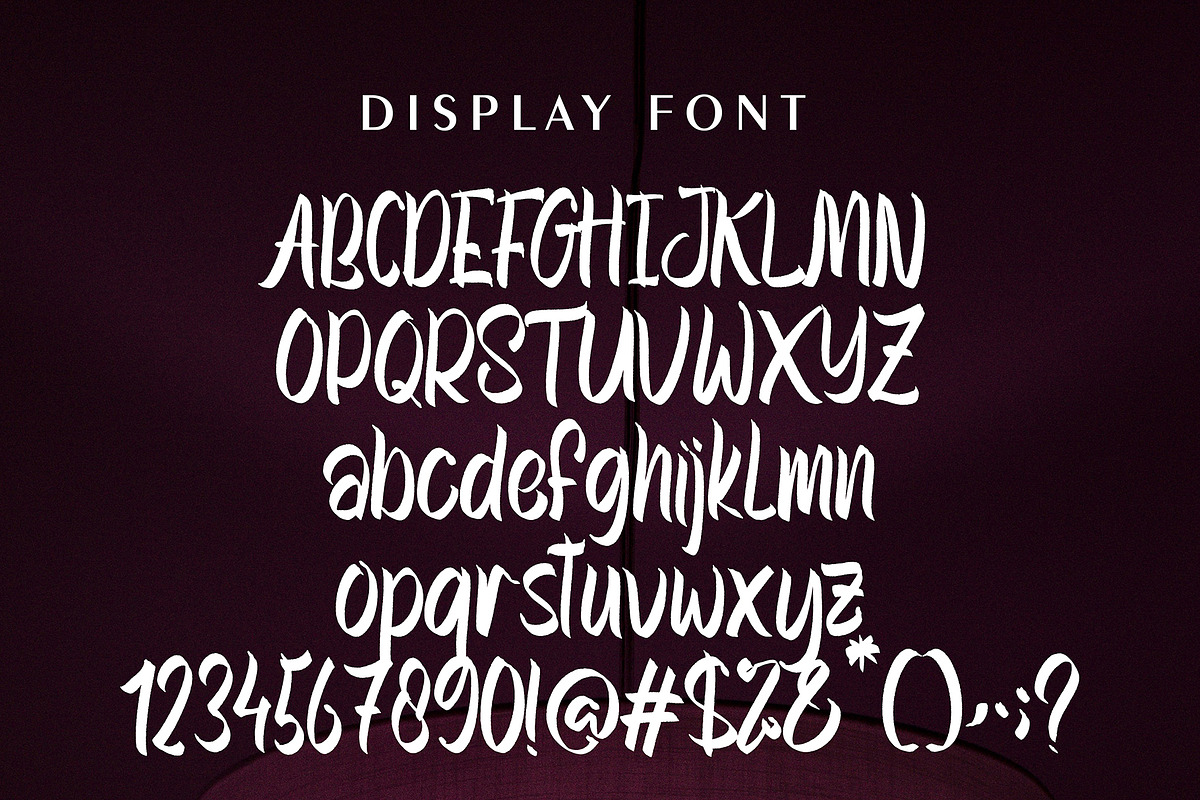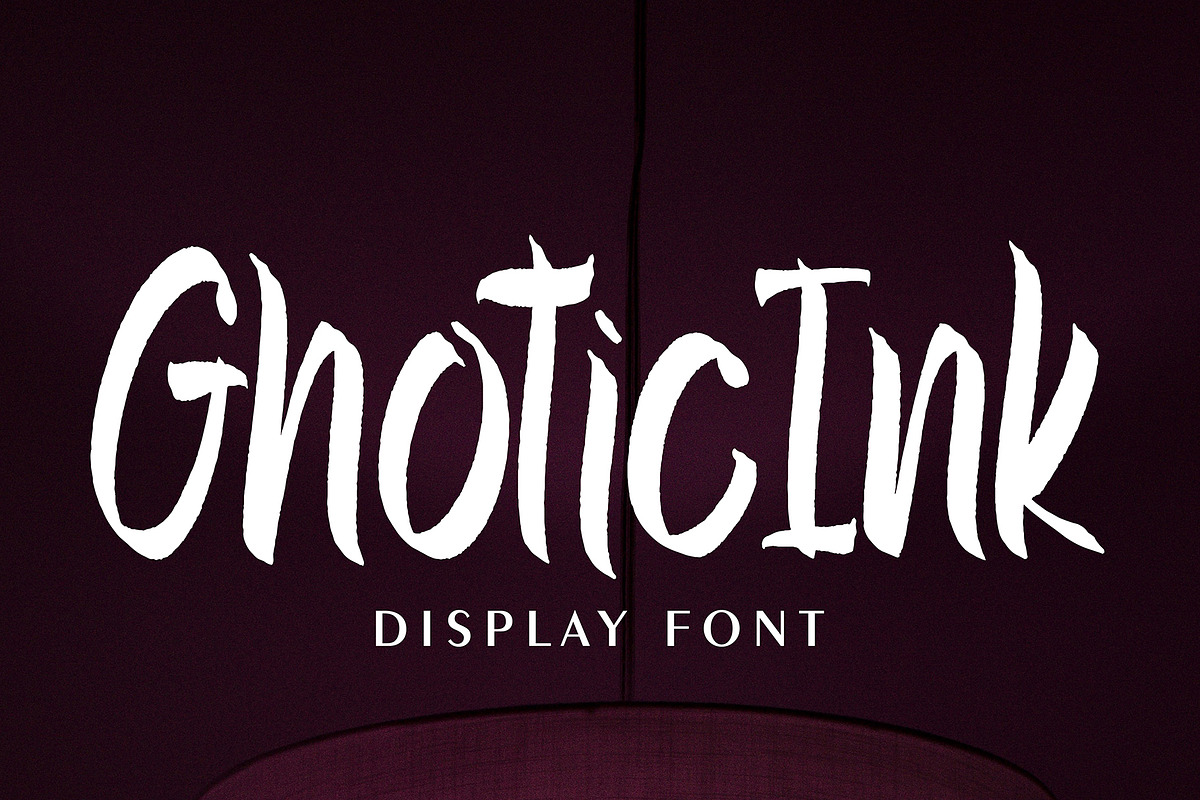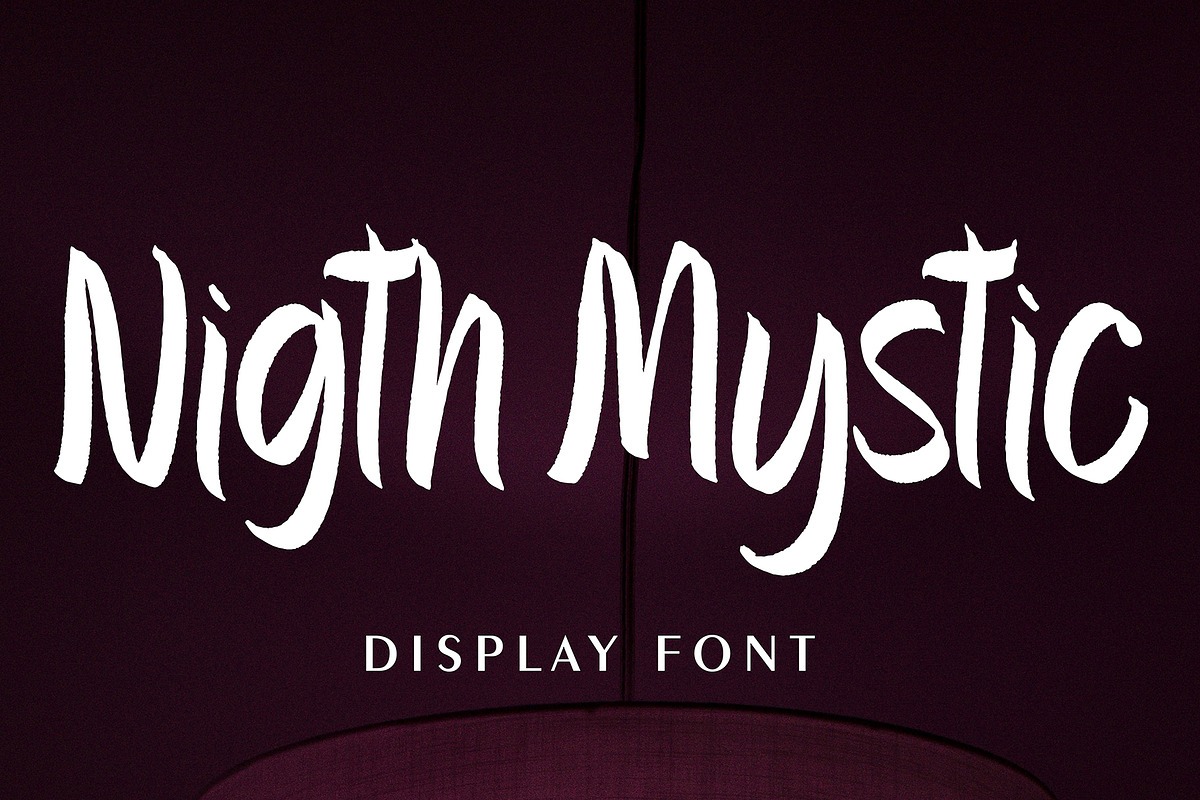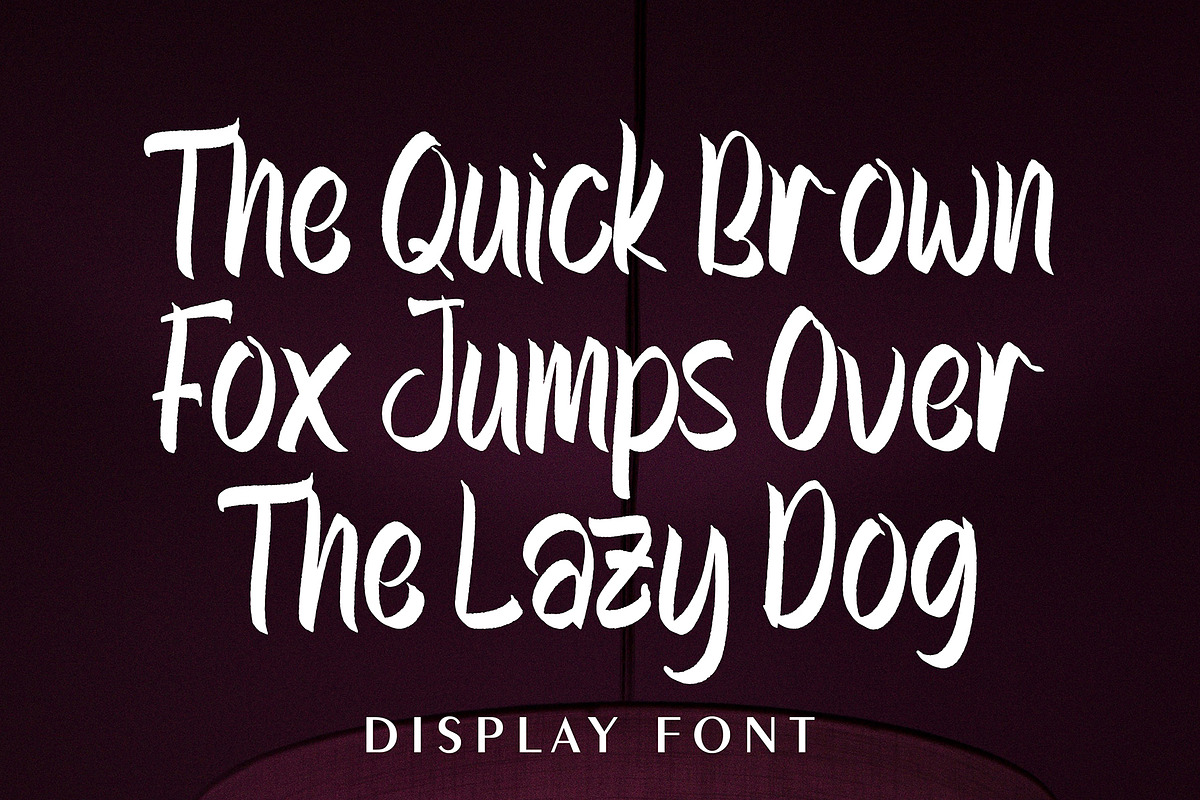
Ghotic Ink
Ghotic Ink font with new style, this font will perfect for many different project ex: quotes, logo, blog header, poster, banding, letter, invitation, stationery, etc...